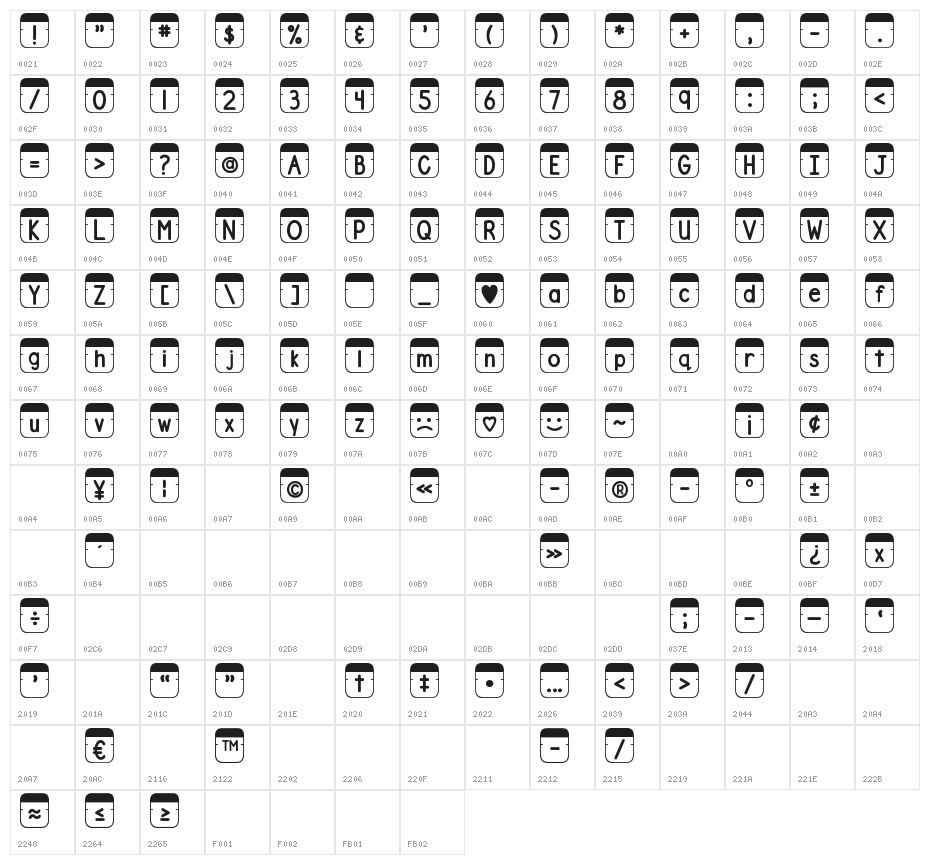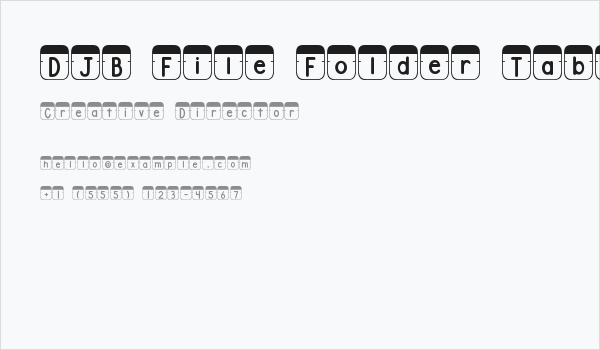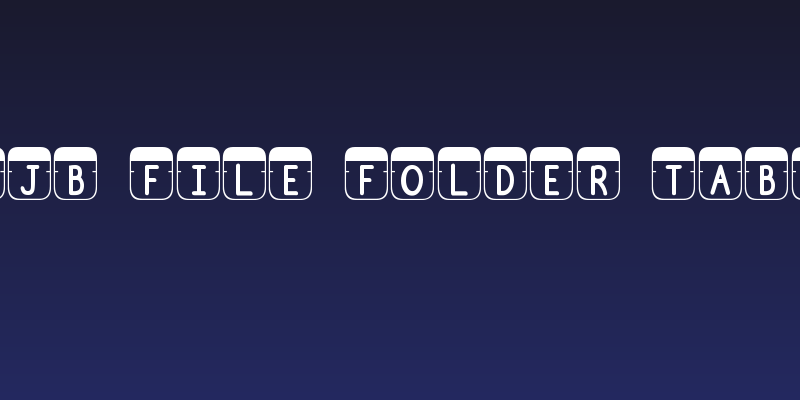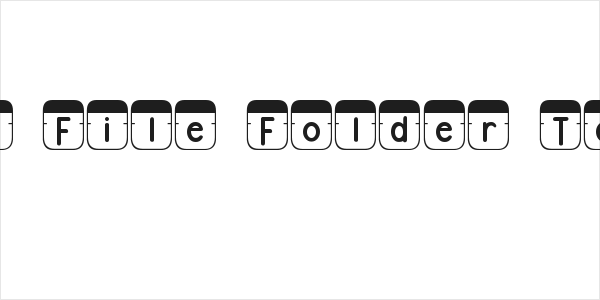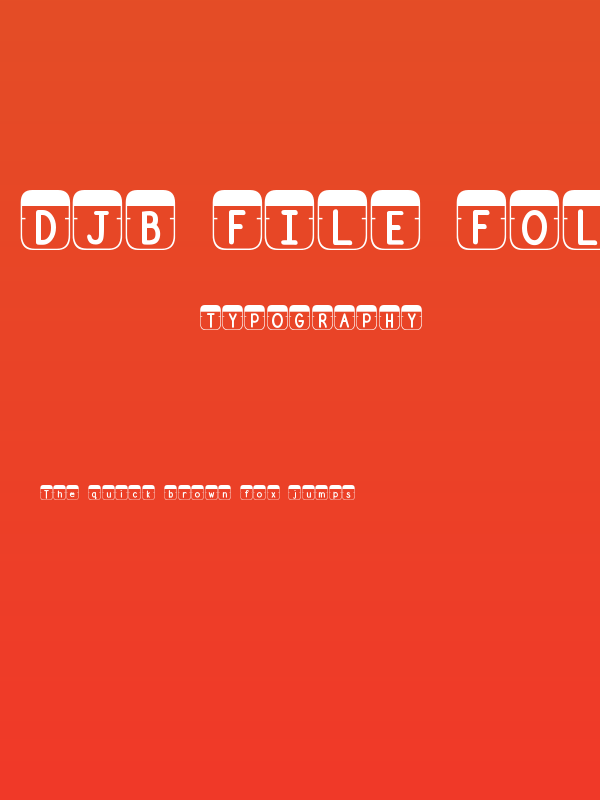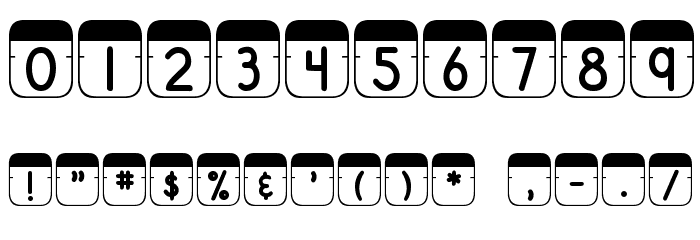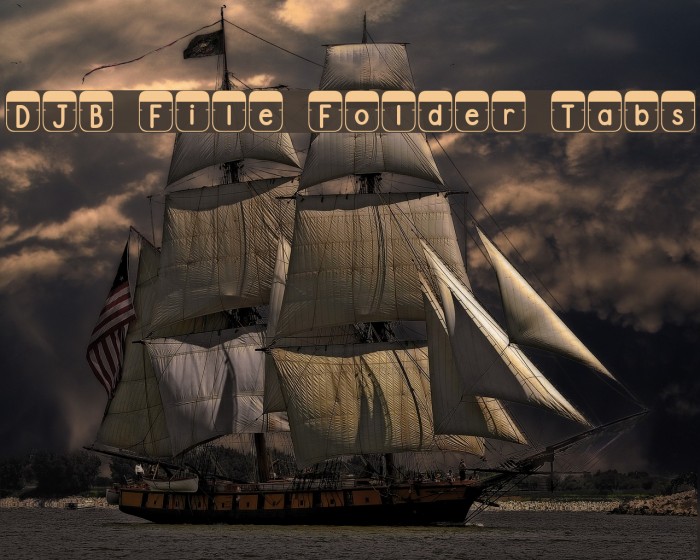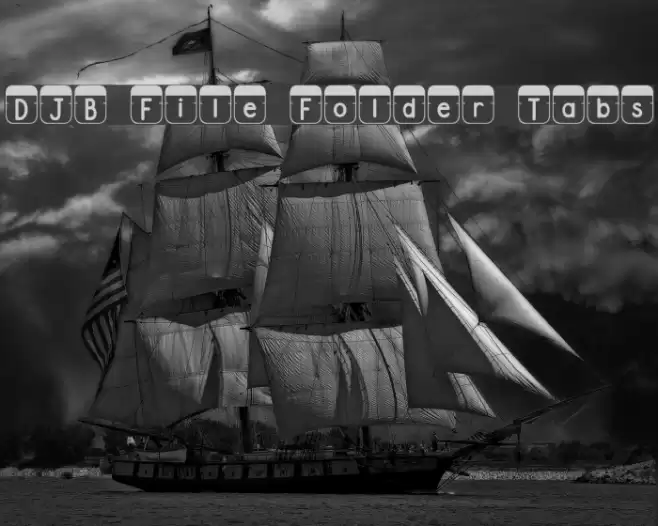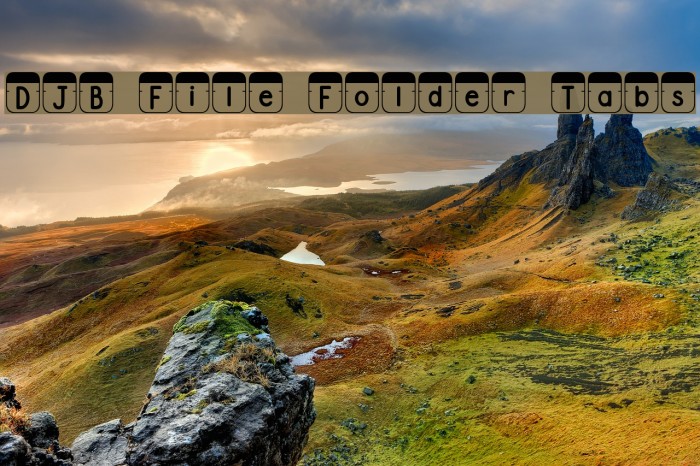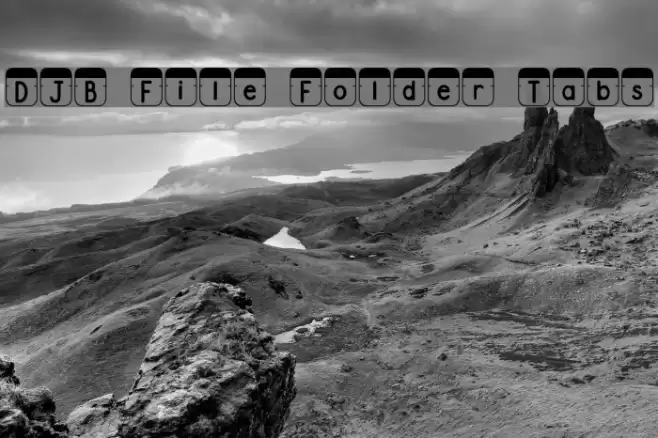
DJB File Folder Tabs Font
| Gesamtstil | Playful |
| Anwendungsfall | Headlines, Logos, Labels |
| Vorgeschlagene Projekte | Ideal for educational materials, children's books, playful branding, and creative labels. |